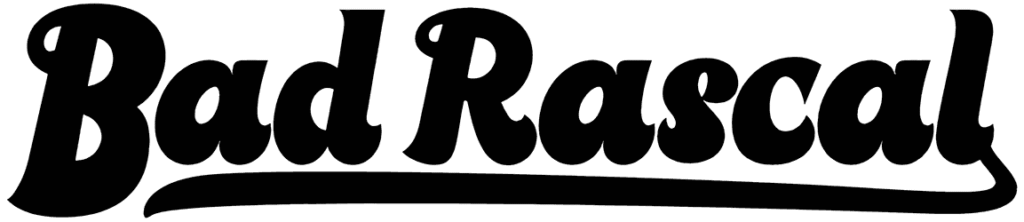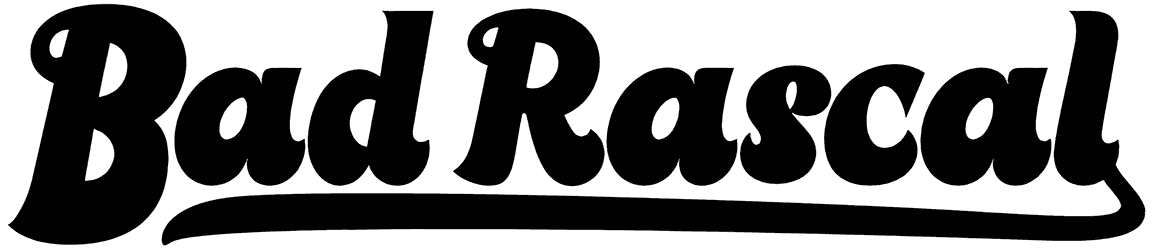
Bad Rascal Font
As a cool and energetic offer, this baseball font is available to bring a classic and bold visual to your sports event flyer. Bad Rascal font has thick and retro handwritten characters, but it should be mentioned that it doesn’t support numerals. Let’s use this t-shirt font for your new creative design and impress your followers.
Example: Powers_Use multiple underscores to make a swashes of different lengths.
Example: Baddest_______